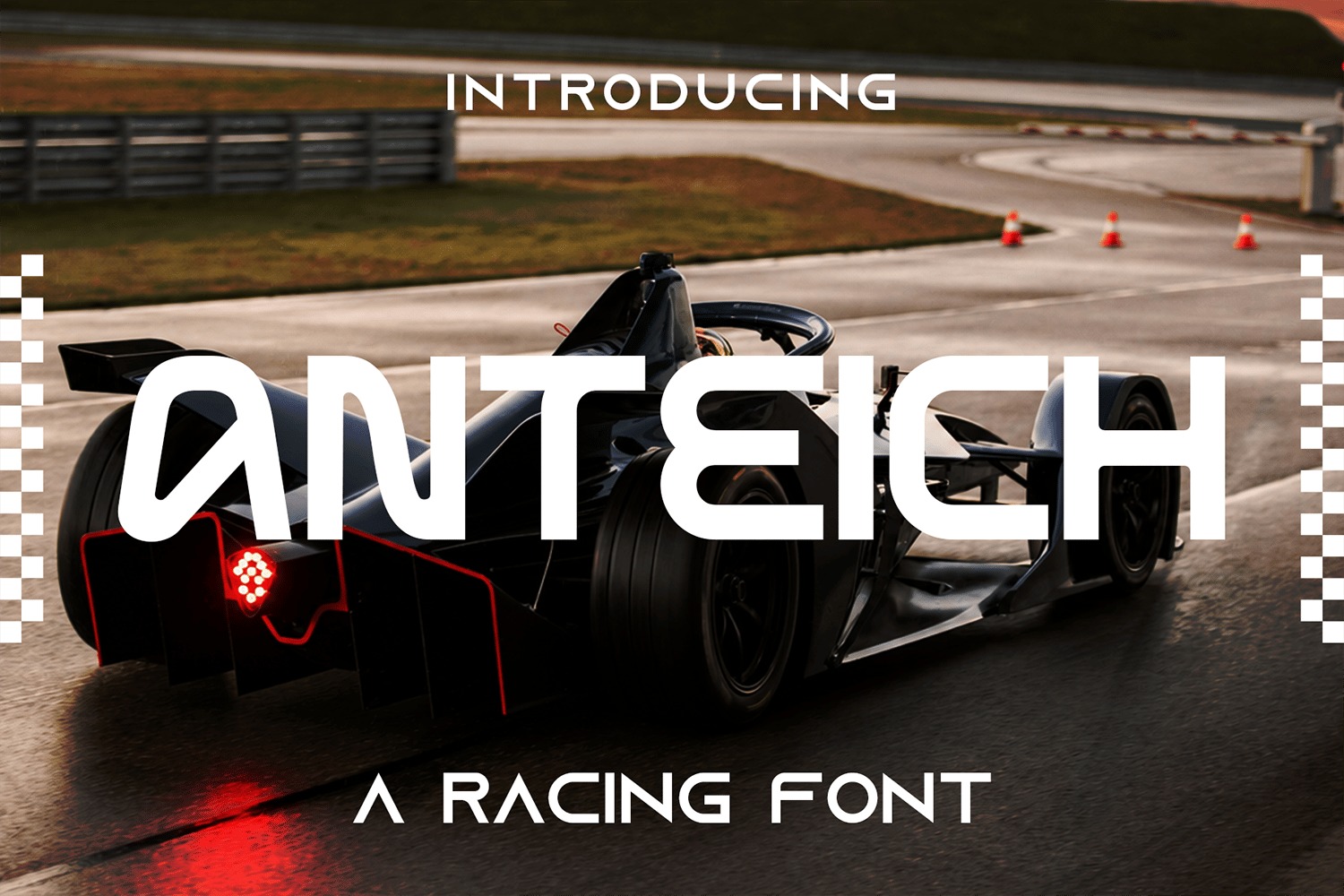
Anteich – Bold Geometric Sans Serif Font
Anteich – Bold Geometric Sans Serif Font is a stylish typeface that enhances visual appeal and works effortlessly in many design contexts. Anteich is a futuristic racing display font featuring bold geometric letterforms inspired by speed, motorsports, and modern automotive design. Its smooth rounded corners and distinctive racing-inspired shapes create a dynamic visual impact, making it ideal for logos, esports, gaming, posters, automotive branding, sports events, packaging, headlines, and technology-themed projects. Complete with uppercase, lowercase, numerals, punctuation, stylistic alternates, ligatures, and multilingual support, Anteich delivers a bold futuristic identity while maintaining excellent readability in large display applications.